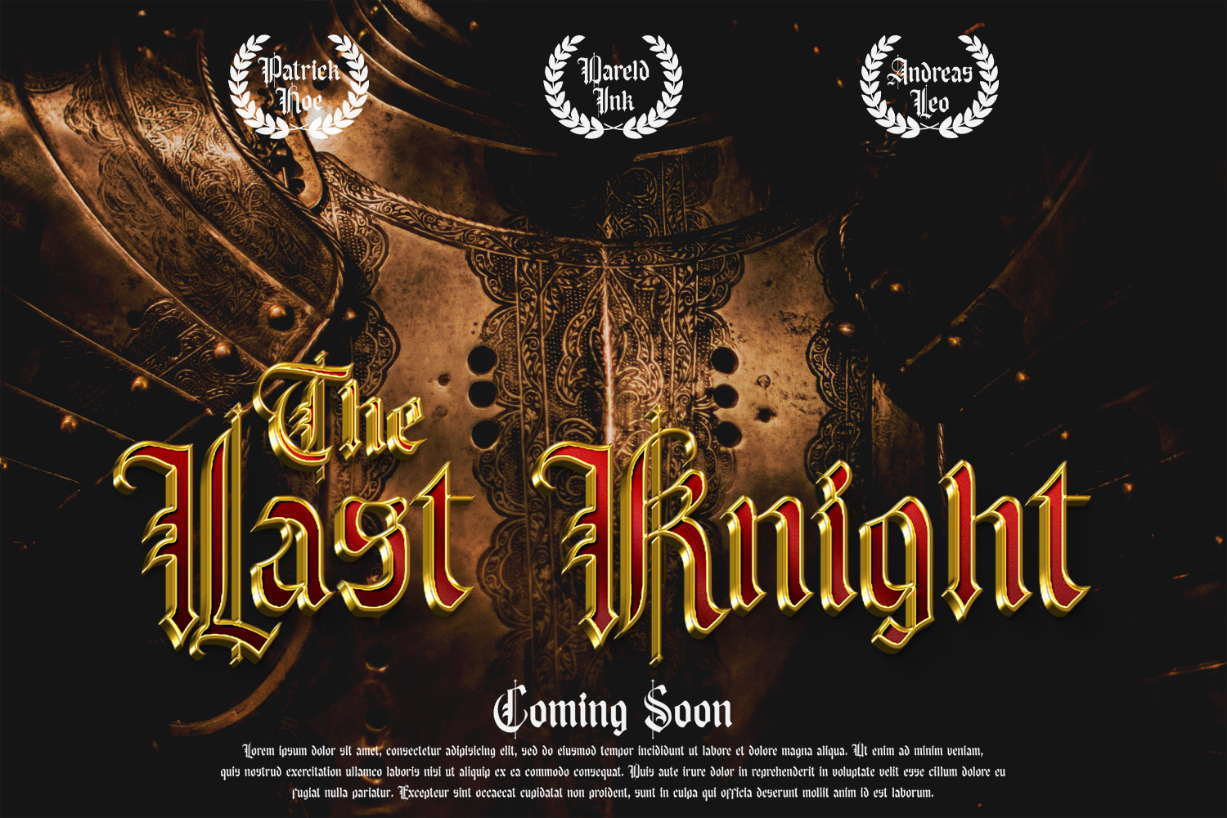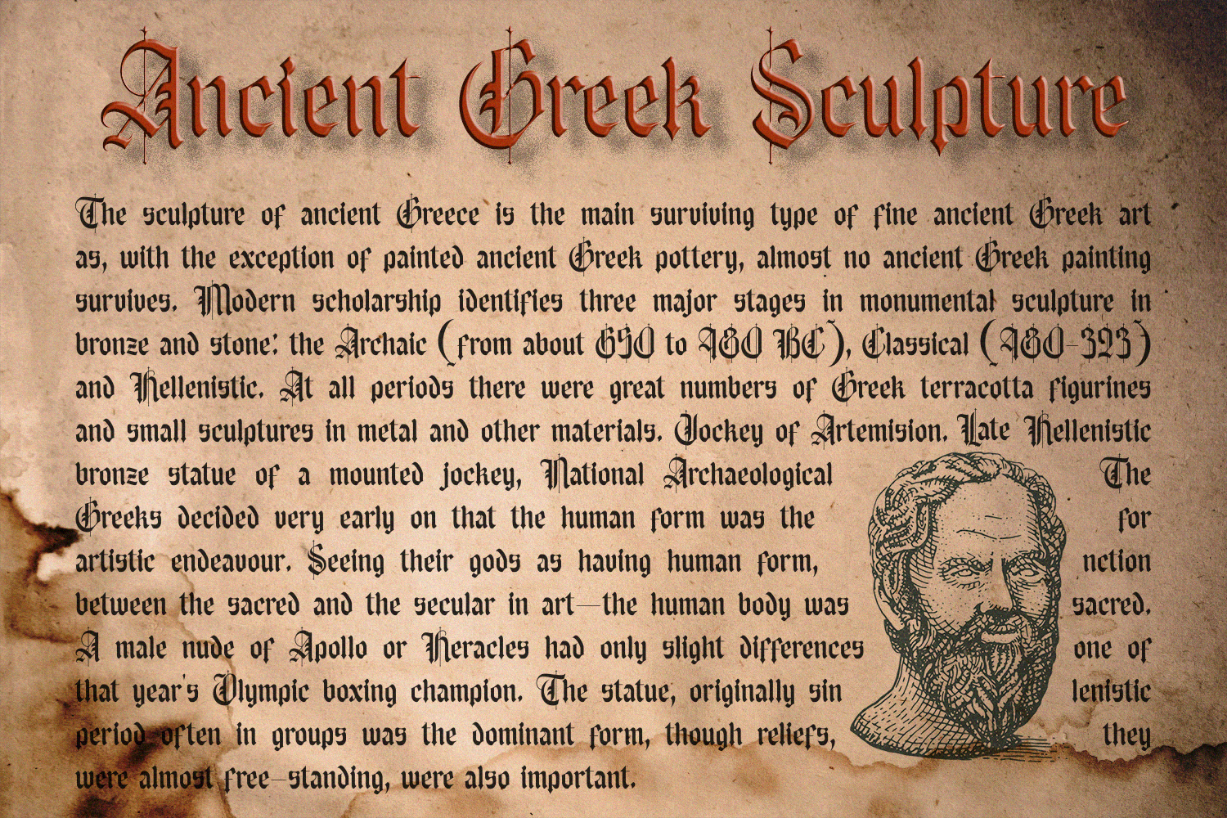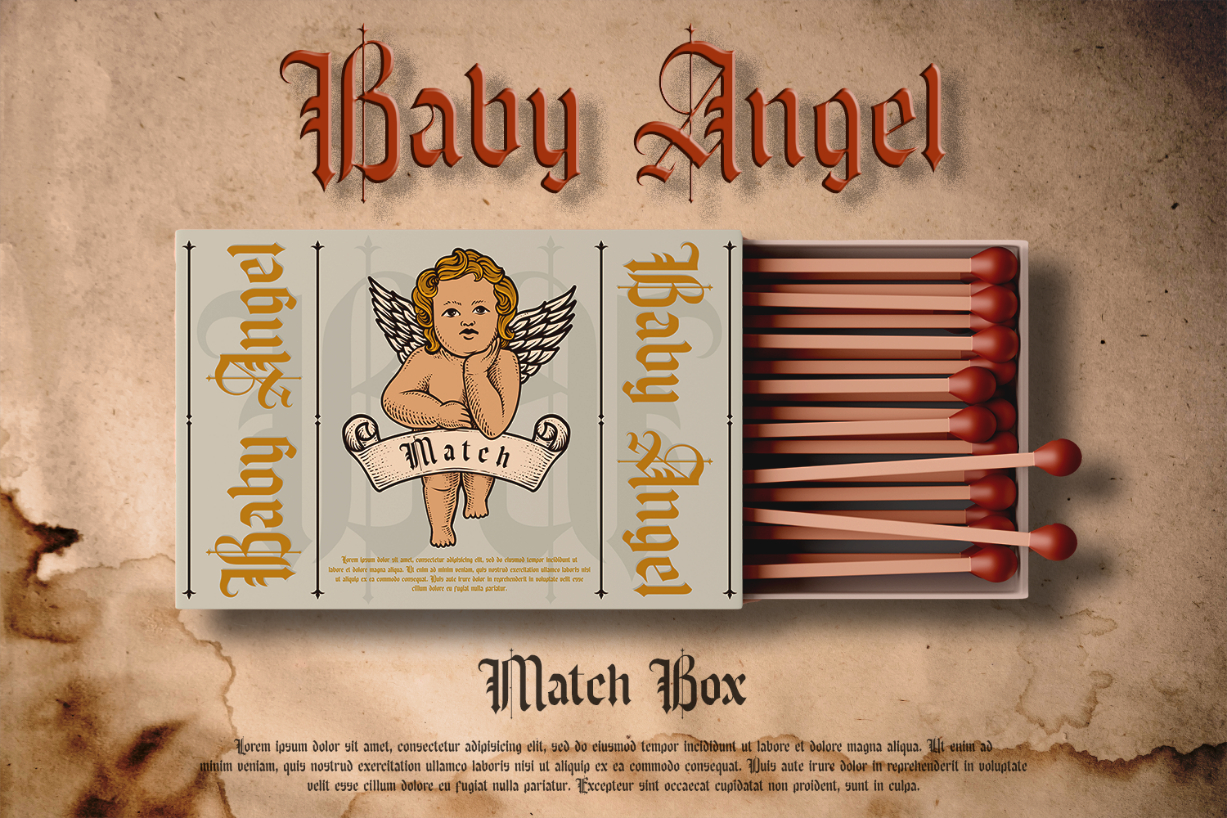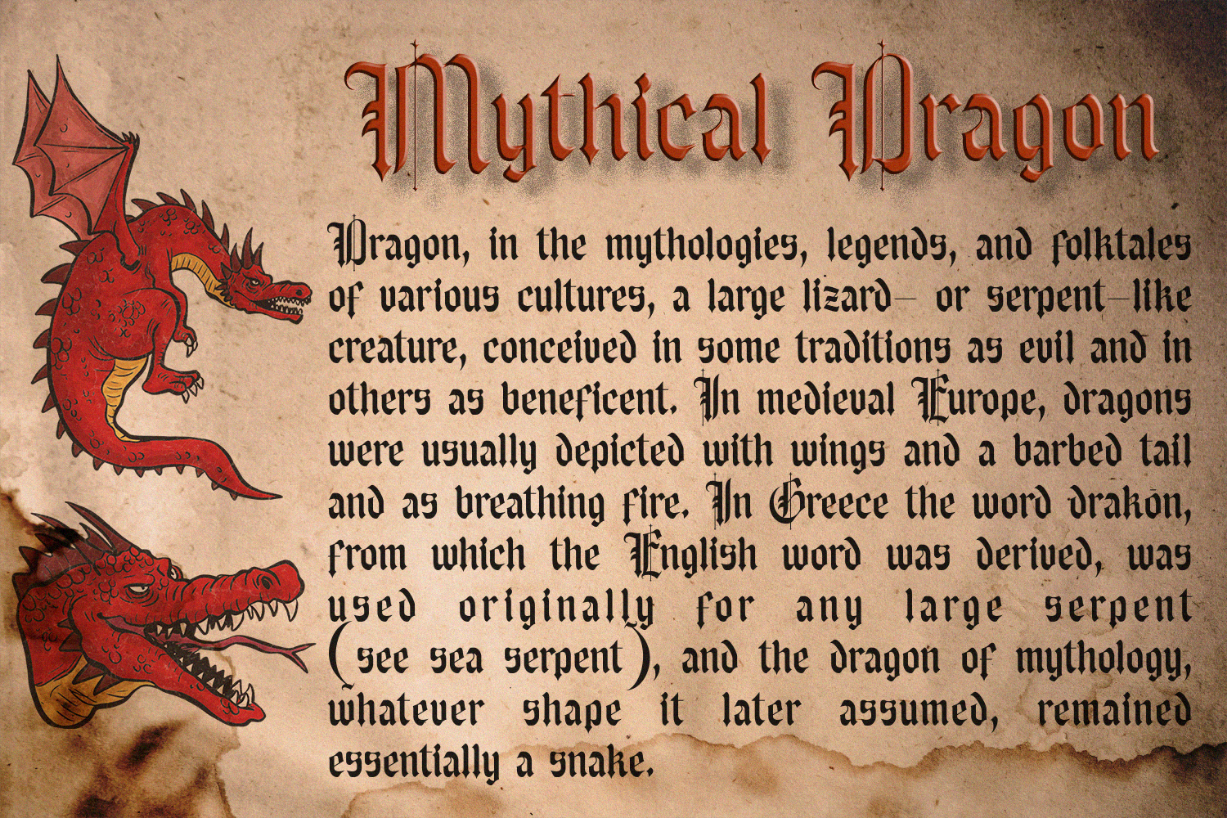
The Mythos Font
About The Mythos Font
The Mythos is a bold and distinctive black letter font that exudes a sense of mystery and tradition. With its medieval-inspired design, this font brings a touch of ancient elegance to your text. Perfect for adding a strong and impactful look to your projects, The Mythos is ideal for titles, logos, or anything that calls for a touch of historical flair. Elevate your design with this timeless font that effortlessly combines strength and style.